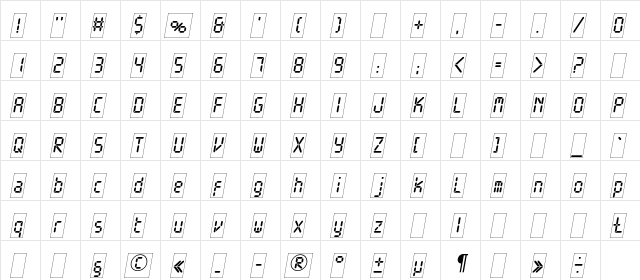
ElectronicaS-WhiteOblique Regular
Design Context for ElectronicaS-WhiteOblique Typeface
ElectronicaS-WhiteOblique takes a measured approach to typography — its balanced proportions and neutral character make it a reliable workhorse for both digital and print work. Its italic angle brings a sense of urgency and motion to the letterforms.
Pro Tip: Use ElectronicaS-WhiteOblique for emphasis, pull quotes, and subheadings where its slanted energy can add rhythm to the layout.